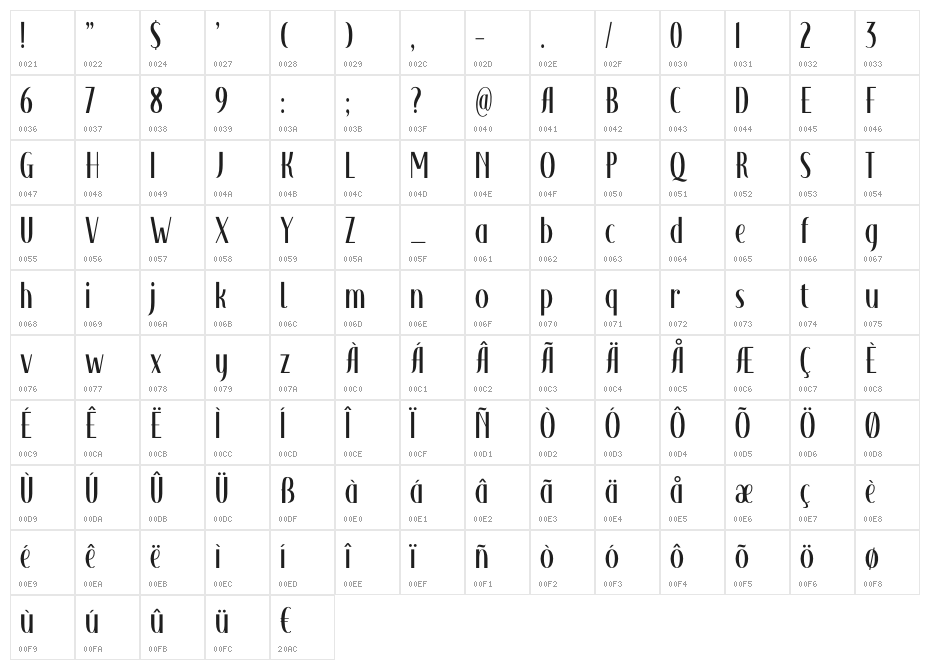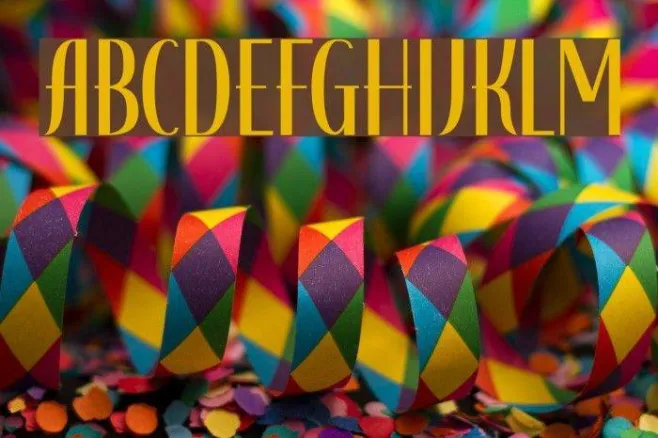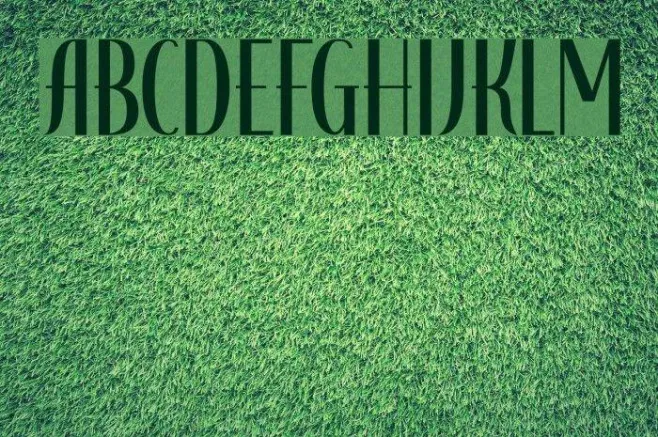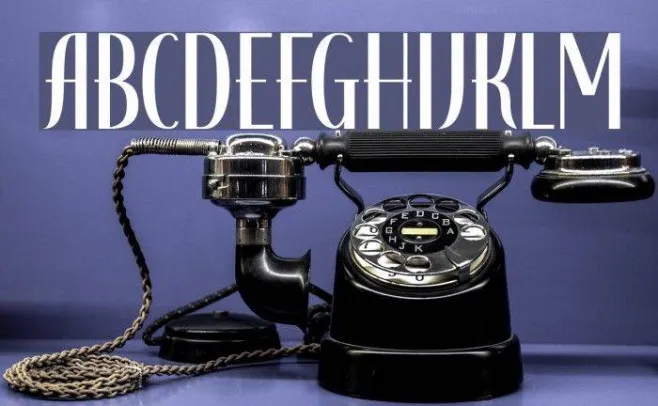
Adagietto DEMO Regular Font
Adagietto DEMO Regular Description
This font features a distinct and elegant style with tall, narrow letterforms and a high contrast between thick and thin strokes. The uppercase letters are particularly elongated, giving a sophisticated and formal appearance. The lowercase letters maintain a similar narrowness, contributing to a cohesive overall look. The numerals are consistent with the alphabetic characters, maintaining the same high contrast and narrow proportions. The special characters are designed to match the elegance and style of the alphabet, making this font suitable for decorative and formal applications.
| Overall Style | Elegant, Formal |
| Proposed Projects | Ideal for wedding invitations, luxury branding, editorial design, and high-end product packaging. |